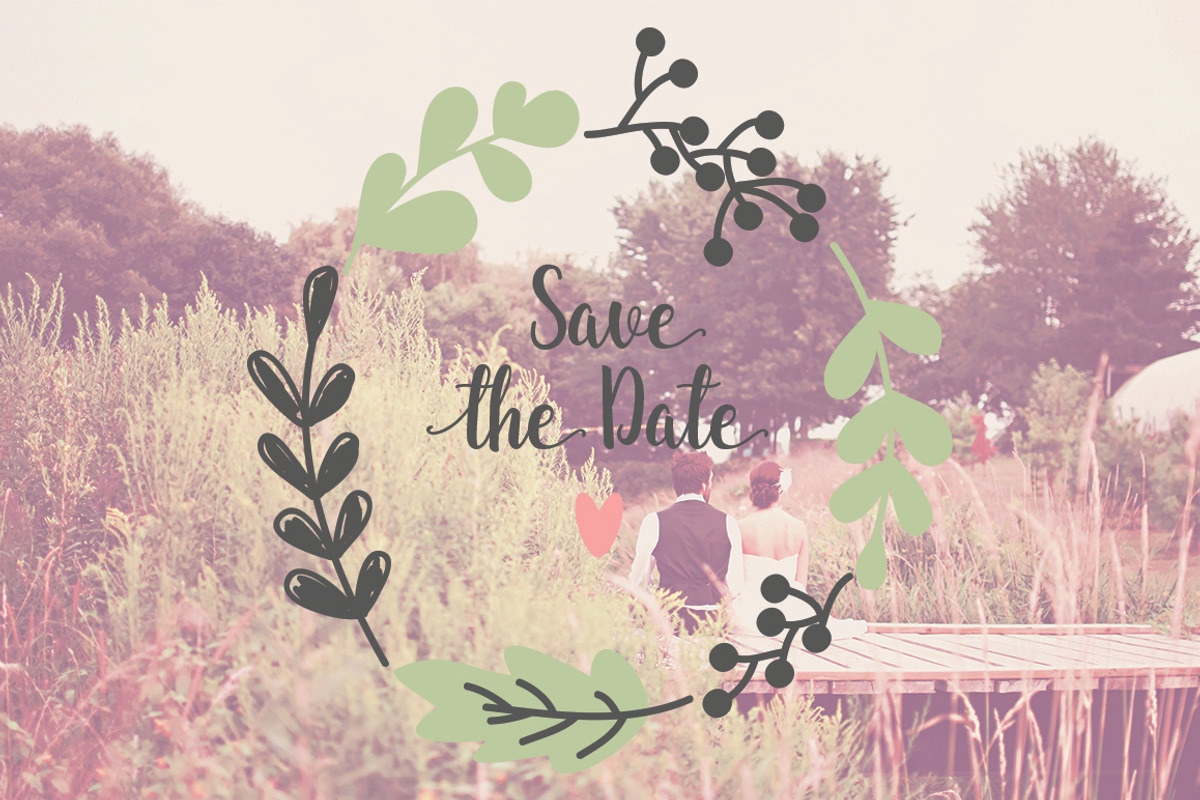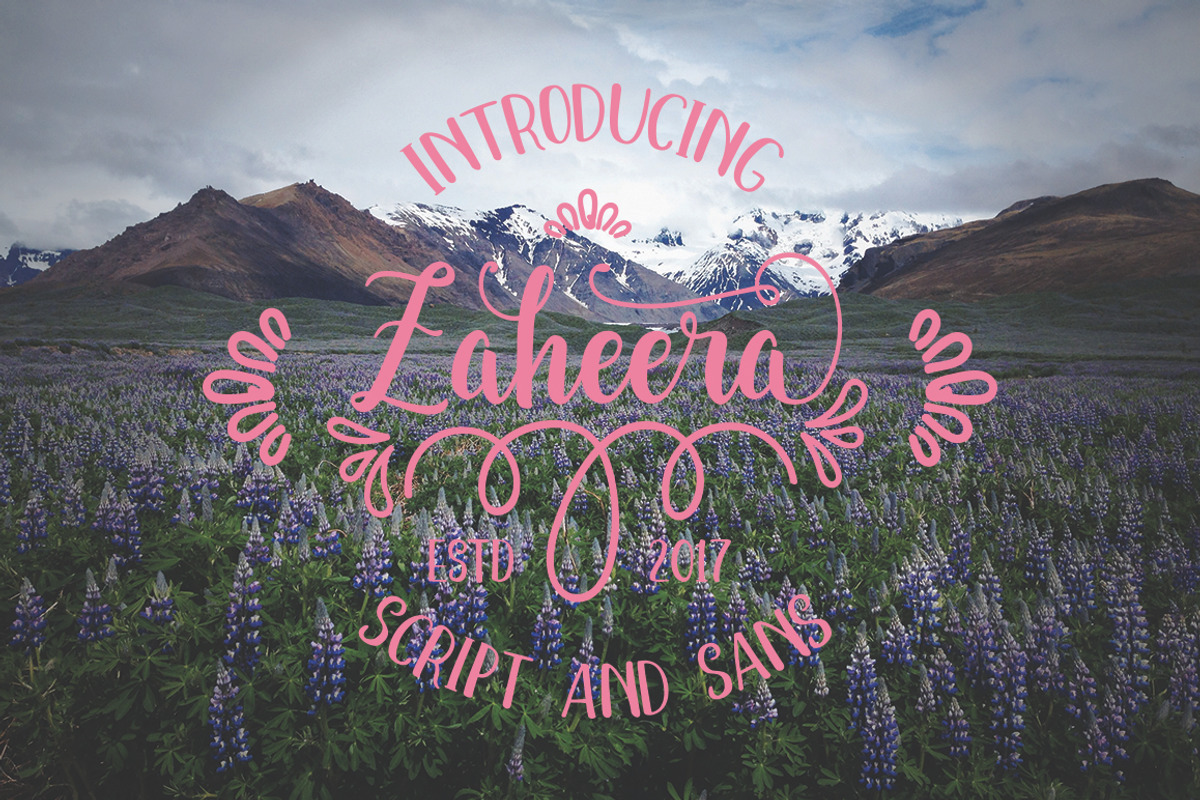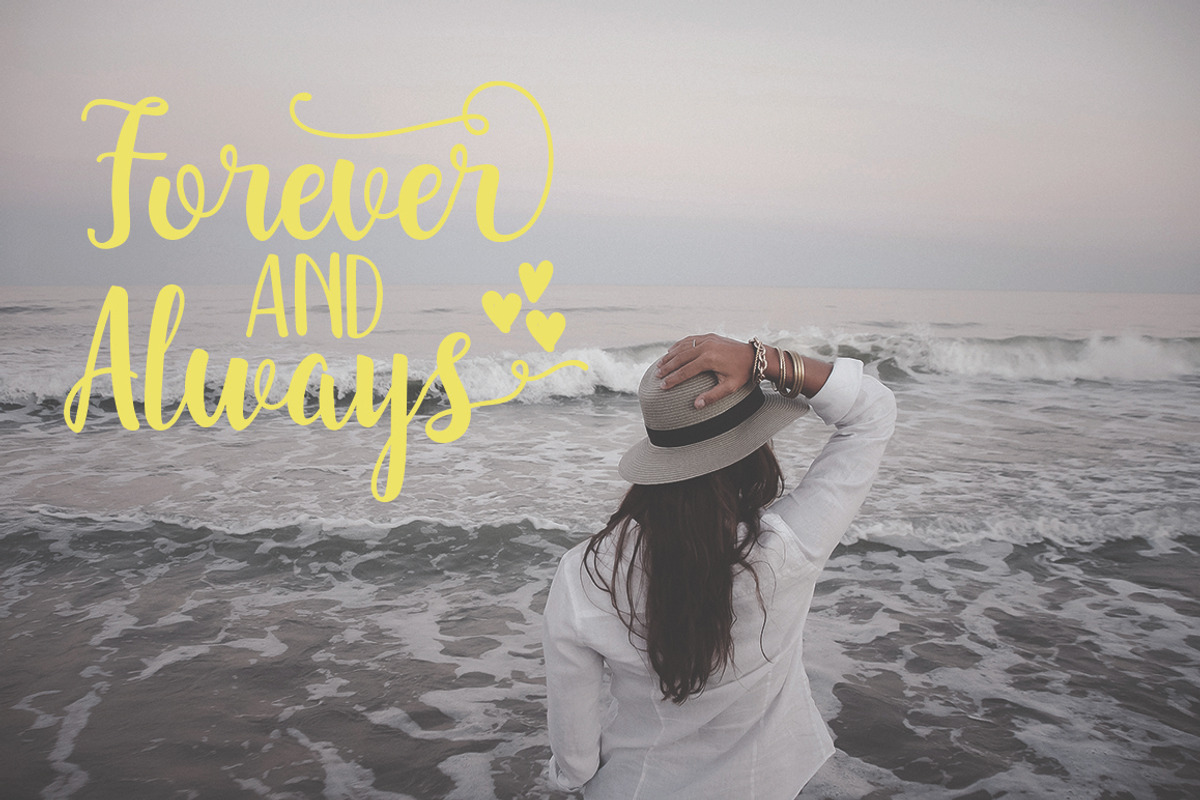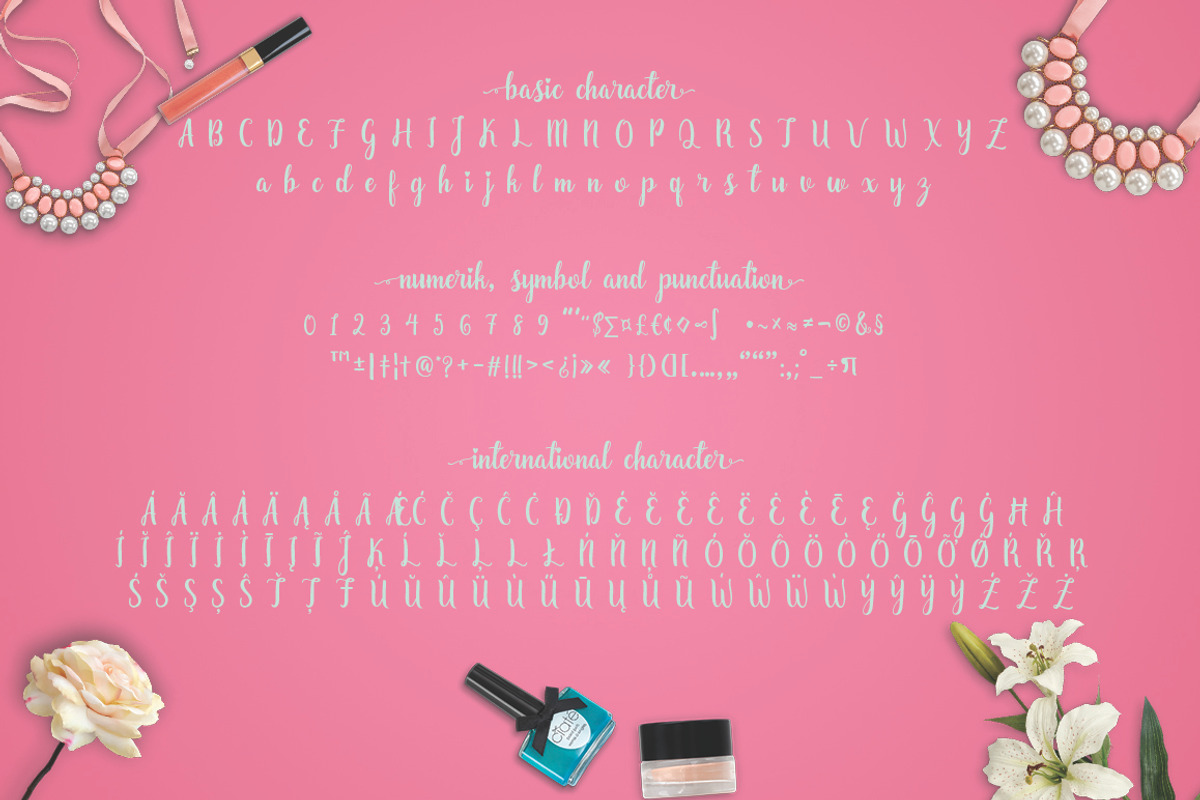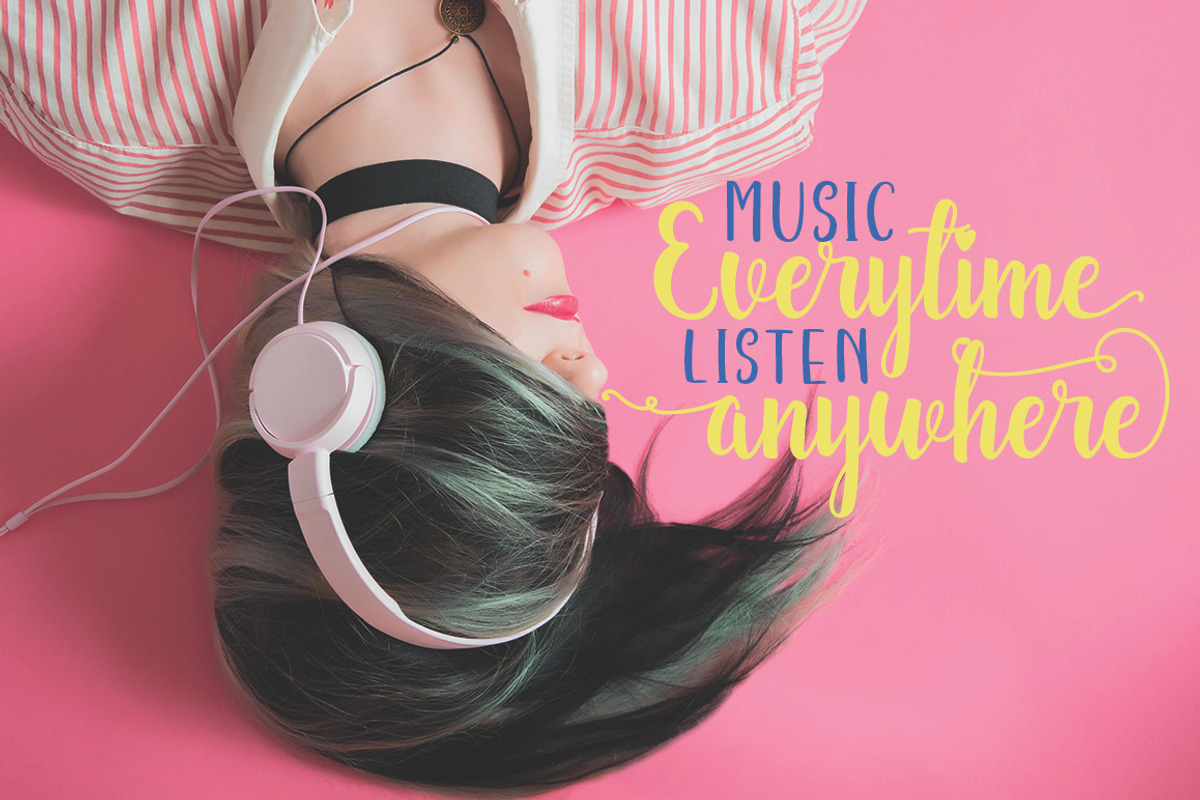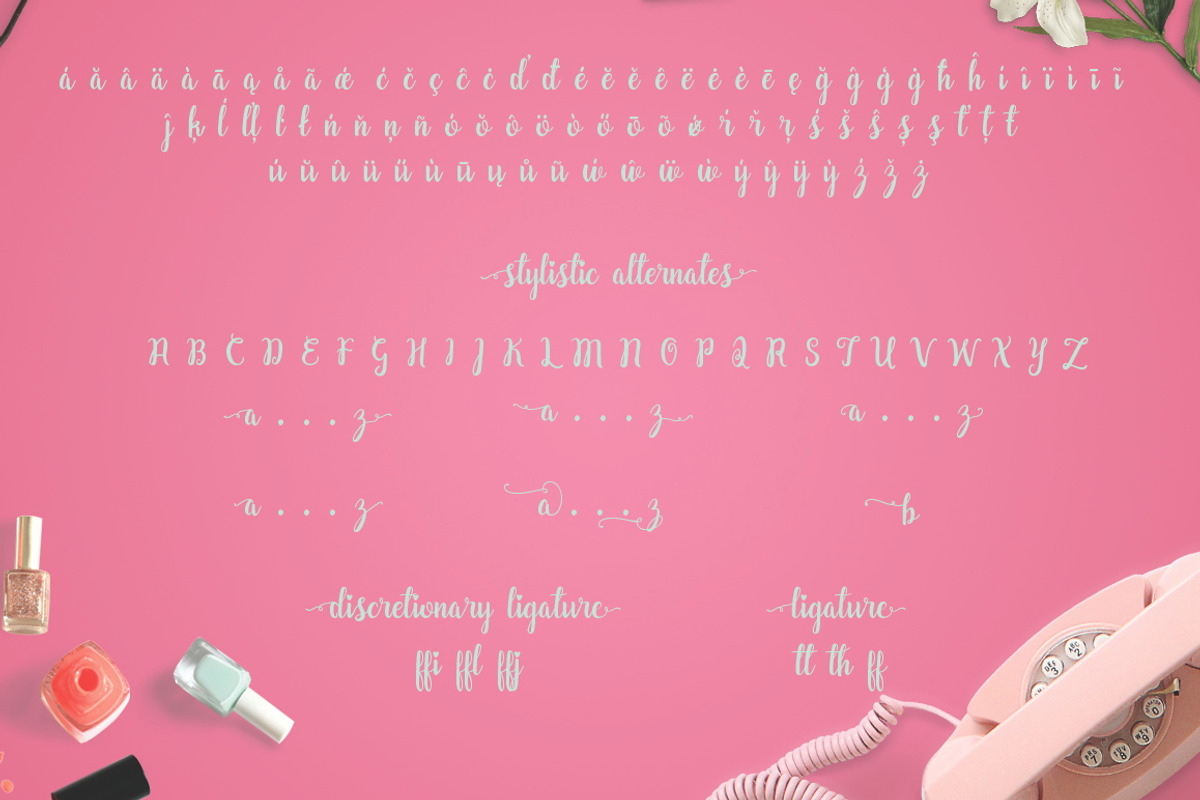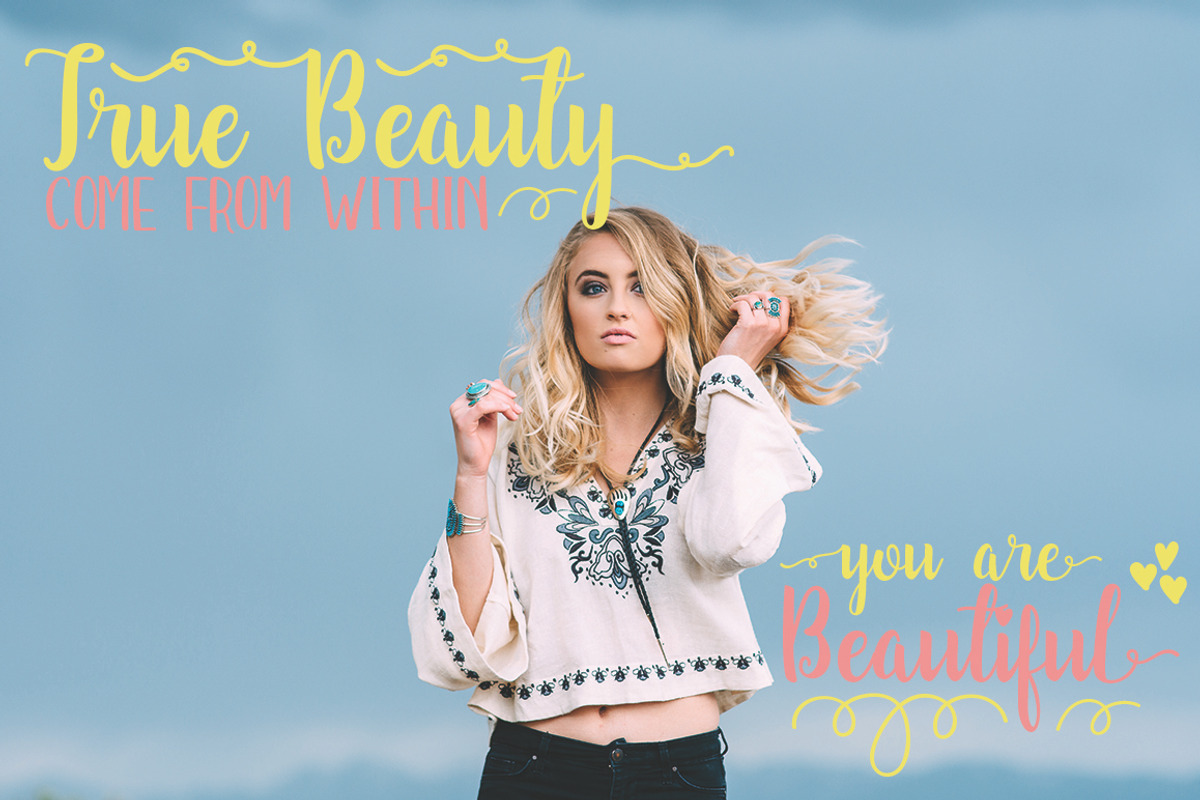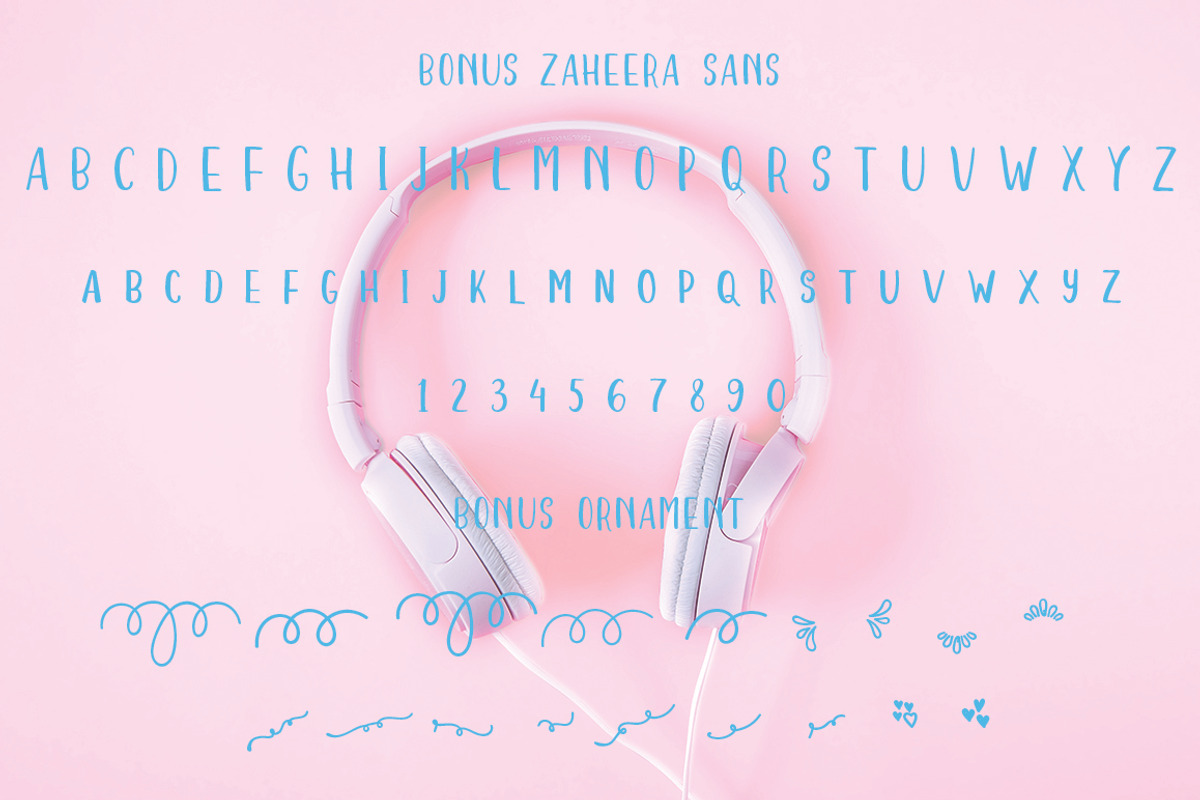
Zaheera Font Duo ( 30 % OFF )
Zaheera Font Duo ( 30 % OFF ) by AQR Studio is a font selected for branding, posters, packaging, typography.
- Zaheera Script Featured With : Basic Character and Multilingual Character Stylistic Sets - Contextual Alternates Stylistic Alternates Swash
- Zaheera-Sans Regular
- Zaheera Script
Zaheera Font Duo ( 30 % OFF ) by AQR Studio fits naturally into Branding, posters, packaging, typography.